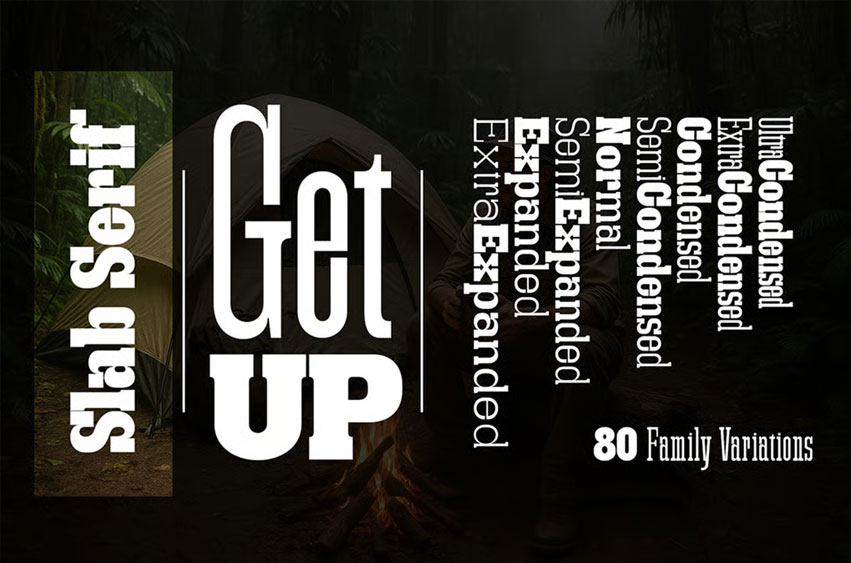
Get Up Normal Font
Get Up Normal Font is a slab serif font that has the perfect balance between the familiar and the unexpected. With Get Up, designers can use this font for various needs in creating elegant design works. Please note, Get Up is a sans serif font family that is different from other sans serifs and is expressive because Get Up is more assertive.
Get Up is a variation characterized by flexibility that looks cool in the glyph character section, Get Up has a slab serif font family including; Ultra Condensed (10 upright fonts); Extra Condensed (10 upright fonts); Semi Condensed (10 upright fonts); Normal (10 upright fonts); Semi Expended (10 upright fonts); Extra Expended (10 upright fonts) So there are 80 font variations in total.
Get Up can decorate the pages of top fashion magazines and publications in print media or web pages. Get Up flows with a vintage charm that supports contemporary designs.
Get Up looks amazing in logos, magazines, and films. This font will be perfect for branding, headlines, captions, paragraphs, and posters. The various weights allow you to experiment with different applications. This font is made to make an impression without sacrificing its beauty and readability.